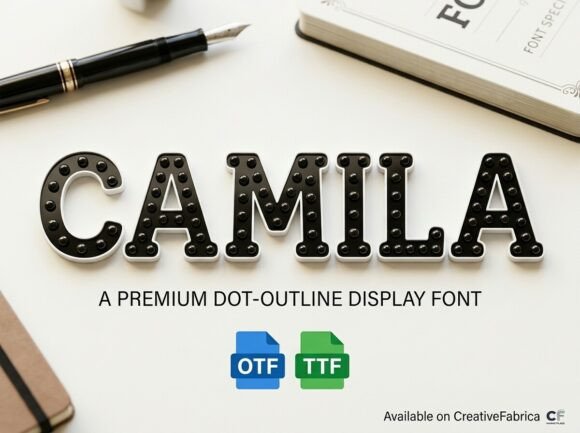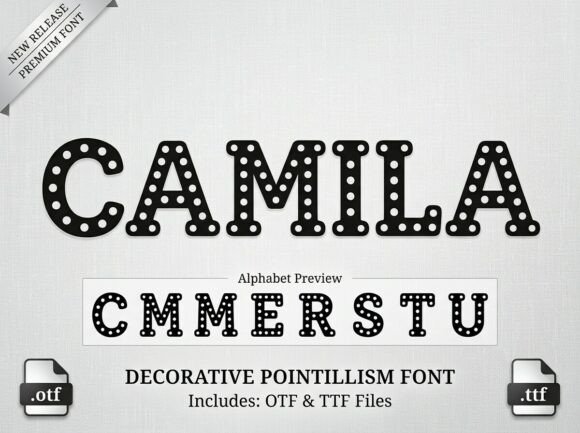
Camila Font: Elevate Your Designs with a Stunning Decorative Display Font
In the world of typography, a great font can make all the difference in capturing the attention of your audience. If you’re a designer or creator looking to add a touch of uniqueness to your projects, look no further than the Camila Font. This decorative display font is designed to be the center of attention, featuring artistic elements and a strong visual personality that sets it apart from the ordinary.
The Camila Font boasts intricate details and creative letterforms, making it perfect for high-impact designs where the typography needs to do the talking. Whether you’re designing a modern poster, a unique brand identity, or eye-catching social media content, this font adds an instant “wow” factor to any project. Its versatility makes it suitable for a wide range of applications, from bold headlines and artistic logos to creative packaging and more.
Ideal for Creative Projects
So, what can you create with the Camila Font? The possibilities are endless! Here are some ideal use cases for this stunning font:
- Poster Design: Create headlines that people can’t look away from. With the Camila Font, you can craft attention-grabbing posters that showcase your message in a bold and creative way.
- Branding & Logos: Build a unique identity for creative businesses. This font is perfect for crafting artistic logos that help your brand stand out from the crowd.
- Apparel & Merch: Perfect for T-shirts, hoodies, and tote bag designs. Add a touch of personality to your apparel and merchandise with the Camila Font.
- Social Media: Make your quotes and announcements stand out in the feed. Use the Camila Font to create eye-catching social media content that grabs attention and sparks engagement.
- Packaging: Give your products a premium feel with the Camila Font. This font is ideal for creating labels, tags, and other packaging materials that exude a professional and polished finish.
Why Choose the Camila Font?
With so many fonts available, why choose the Camila Font? Here are just a few reasons why this font stands out:
- Unique Artistic Elements: The Camila Font features artistic elements that set it apart from more traditional fonts.
- Strong Visual Personality: This font has a strong visual personality that demands attention and adds an instant “wow” factor to any project.
- Versatility: The Camila Font is versatile enough for a wide range of applications, from bold headlines to creative packaging.
- Professional and Polished Finish: Despite its creative and artistic nature, the Camila Font maintains a professional and polished finish that’s perfect for high-end designs.
Tips for Using the Camila Font
To get the most out of the Camila Font, here are a few tips to keep in mind:
- Use it Sparingly: While the Camila Font is perfect for headlines and attention-grabbing text, it’s best to use it sparingly to avoid overwhelming your design.
- Experiment with Colors: The Camila Font looks great in a variety of colors, so don’t be afraid to experiment and find the perfect hue for your design.
- Pair it with Other Fonts: For added visual interest, try pairing the Camila Font with other fonts to create a unique and eye-catching design.
If you’re looking for a font that will elevate your designs and add a touch of uniqueness, the Camila Font is an excellent choice. With its artistic elements, strong visual personality, and versatility, this font is perfect for a wide range of creative projects. Whether you’re a designer, craft, or simply someone who appreciates great typography, the Camila Font is sure to impress.